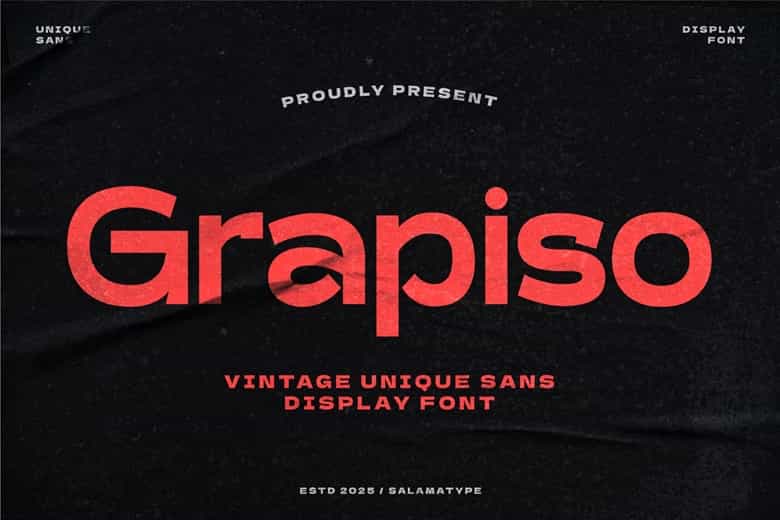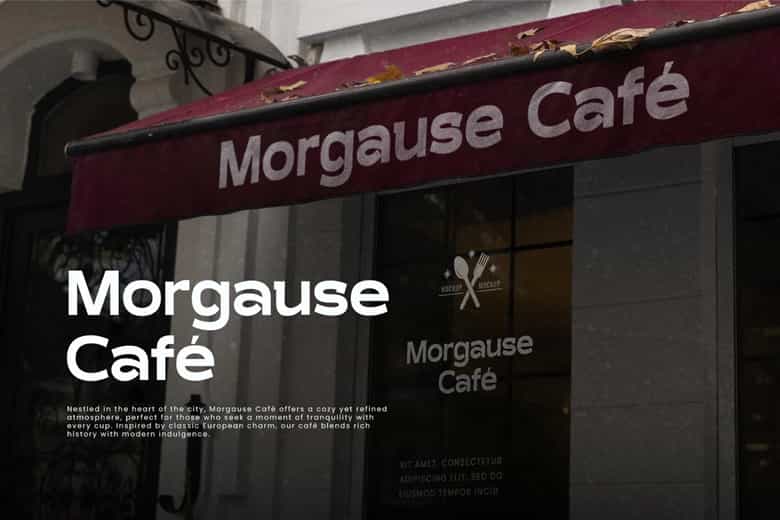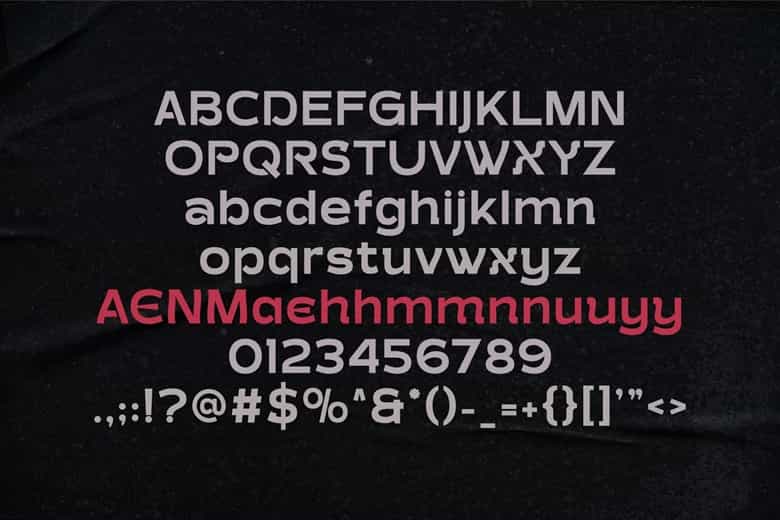
Grapiso is an unique sans serif typeface that has a clean and minimalistic look and is best suited for all the contemporary designs and styles. ‘Grapiso is the creations which have sharp lines and modern outlook so it can be perfect for those people who wants unique looking but professional.